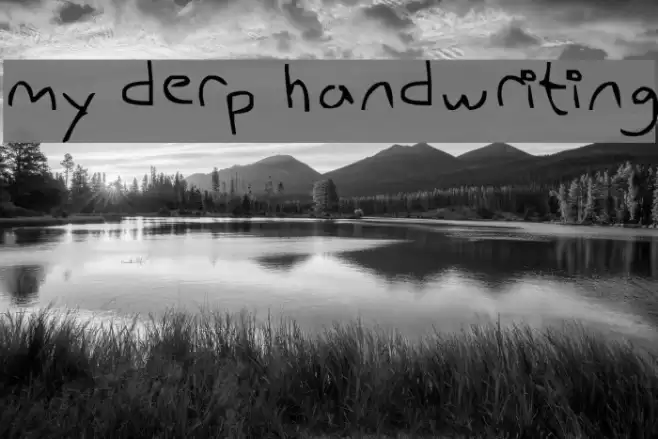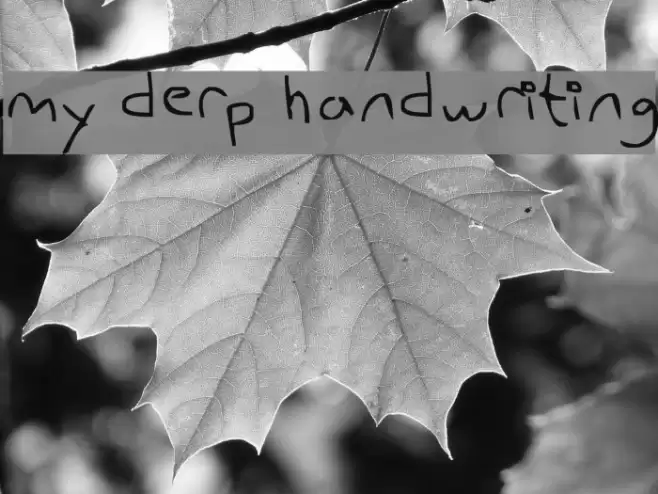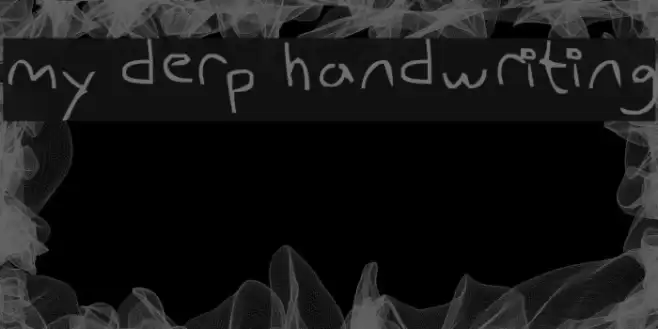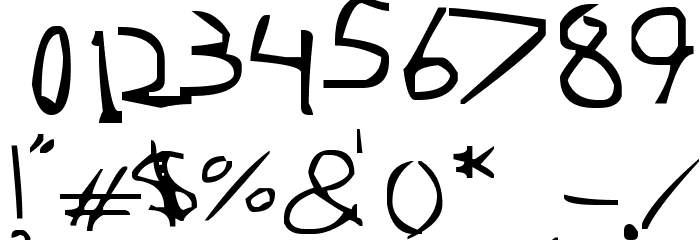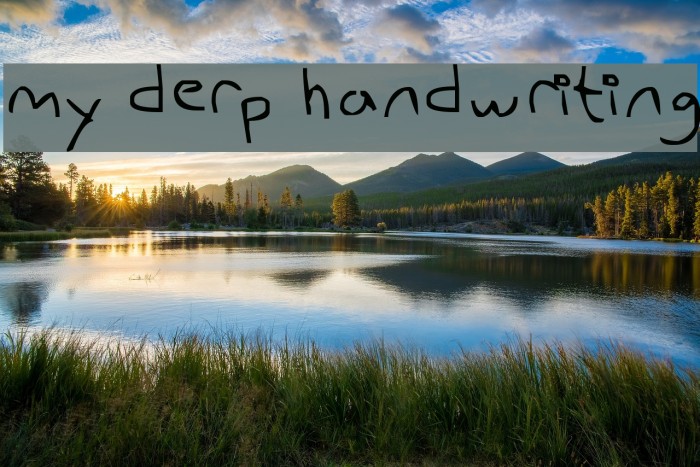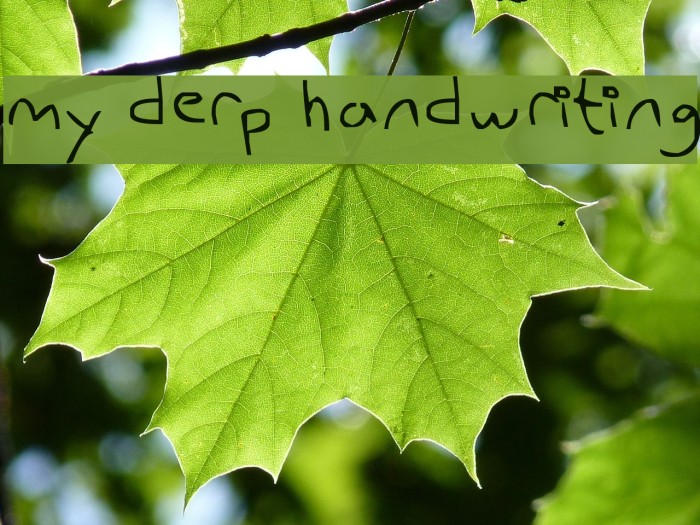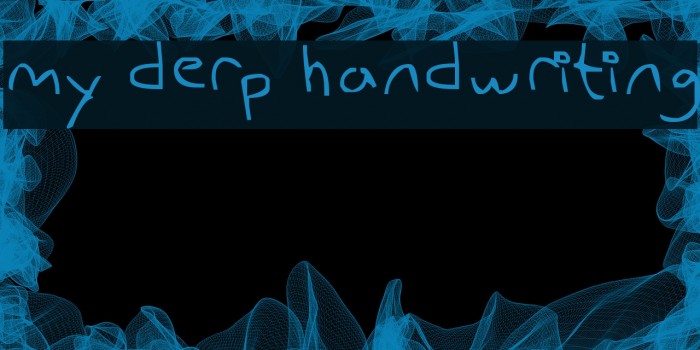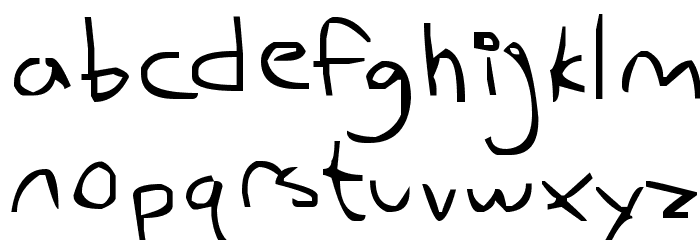
my derp handwriting Font
my derp handwriting Description
This font exudes a playful and casual vibe, reminiscent of handwritten notes with a quirky twist. The letters are irregular and slightly tilted, adding a sense of spontaneity and informality. The strokes vary in thickness, giving it a dynamic and lively appearance. The characters have a loose, freeform structure, making them appear as if they were quickly jotted down. This style is perfect for projects that require a personal touch or a sense of whimsy. The font maintains readability while offering a unique and expressive character.
A playful, handwritten-style font with irregular, dynamic strokes from Handwritten fonts.
- Proposed Projects: Ideal for greeting cards, personal blogs, children's books, and casual branding.
- Overall Style: Casual, Playful
- Use Case: Headlines, Informal text, Creative projects